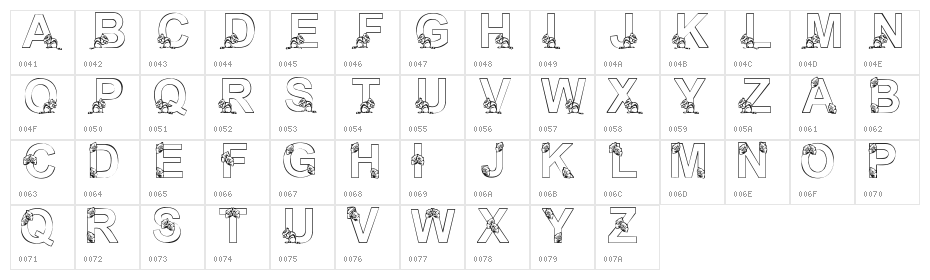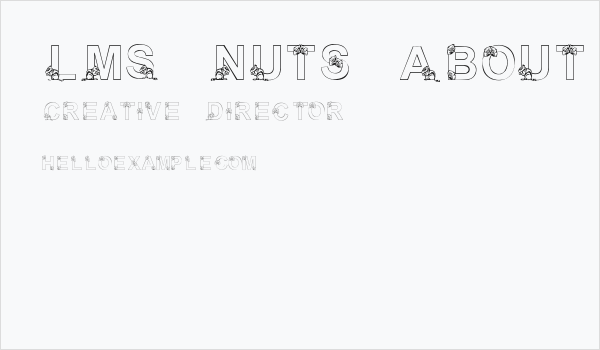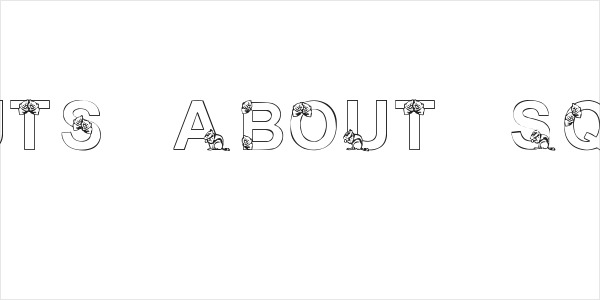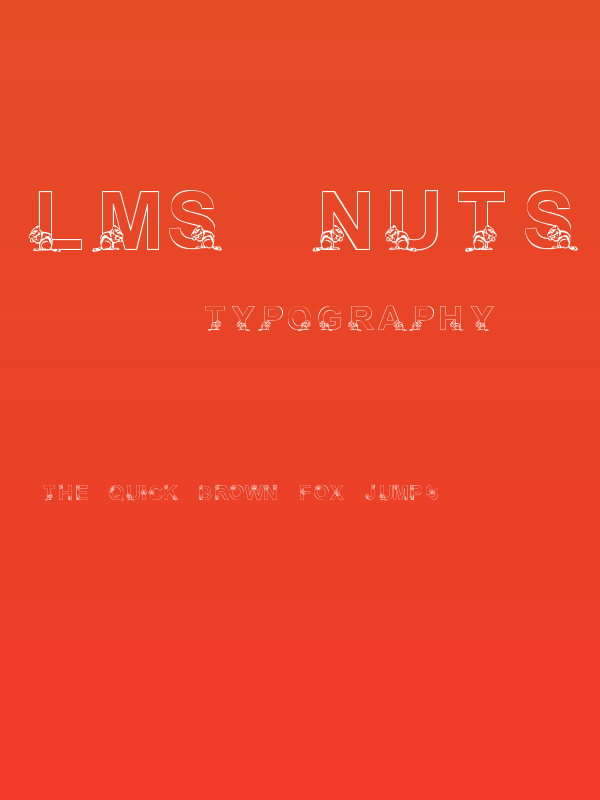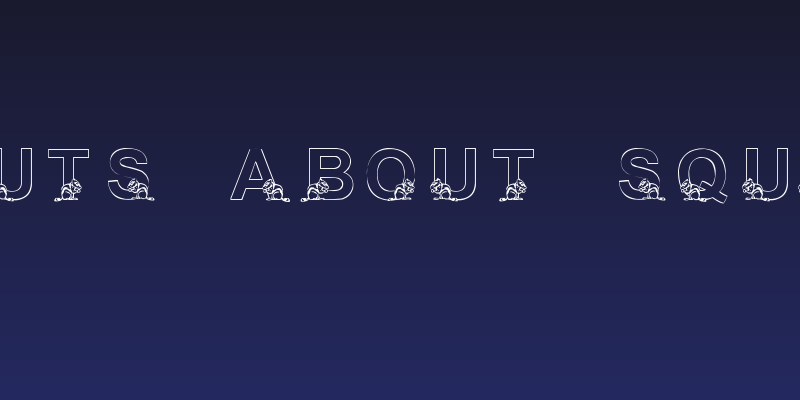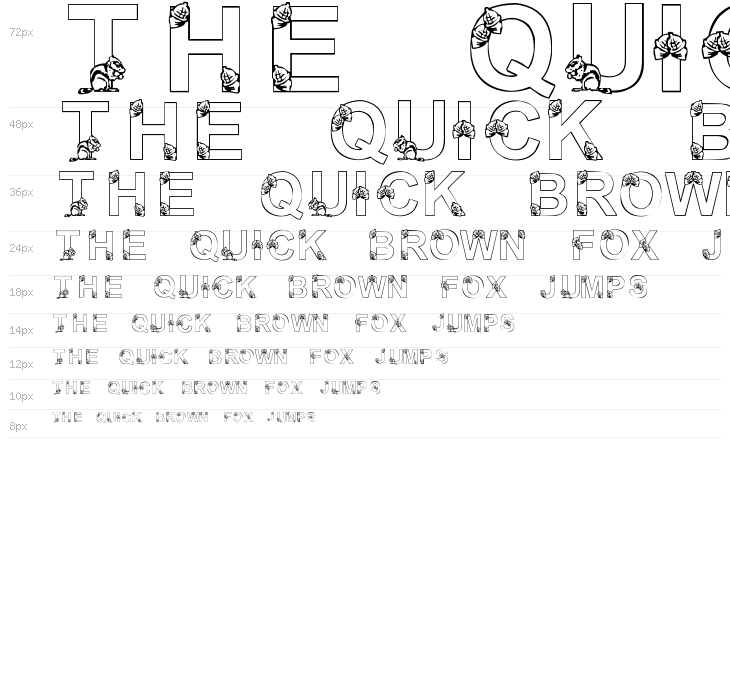
LMS Nuts About Squirrels Font
LMS Nuts About Squirrels Description
This playful and whimsical font features bold, uppercase letters adorned with charming squirrel illustrations. Each character is uniquely integrated with a squirrel motif, adding a touch of nature and fun to the design. The font maintains a consistent line weight, ensuring readability while still offering a decorative flair. The squirrels are cleverly positioned to interact with the letters, creating a dynamic and engaging visual experience. This font is ideal for projects that require a lighthearted and creative touch, such as children's books, playful branding, or nature-themed designs.
| Proposed Projects | Ideal for children's books, playful branding, nature-themed designs, and creative invitations. |